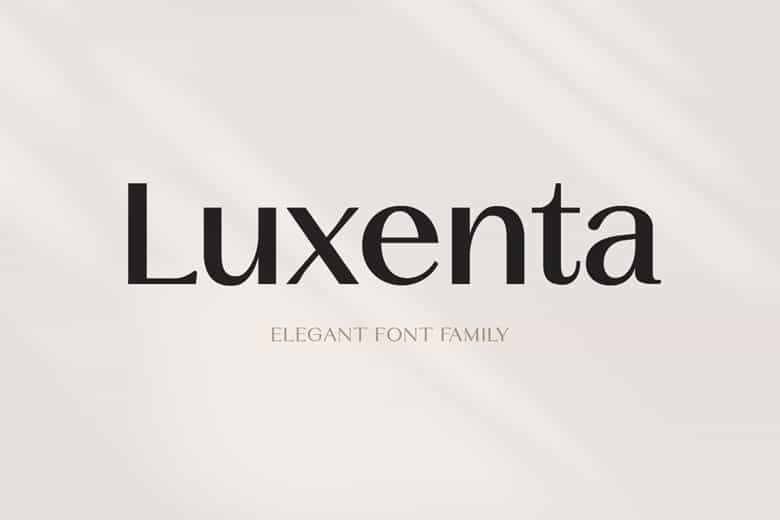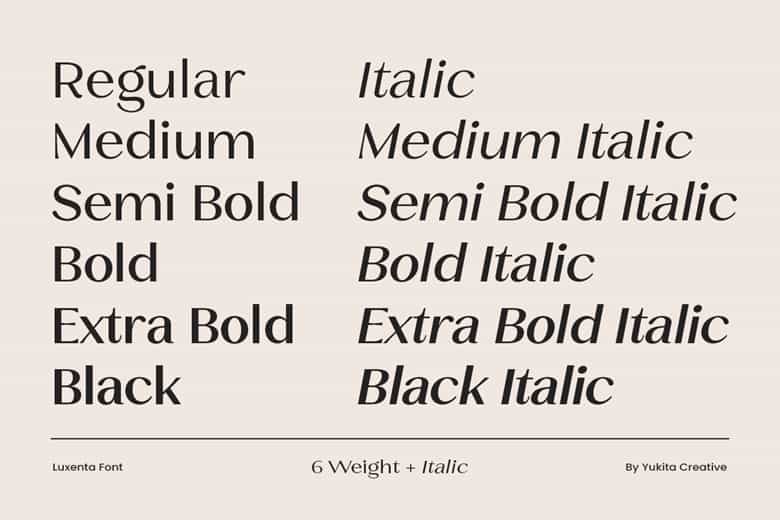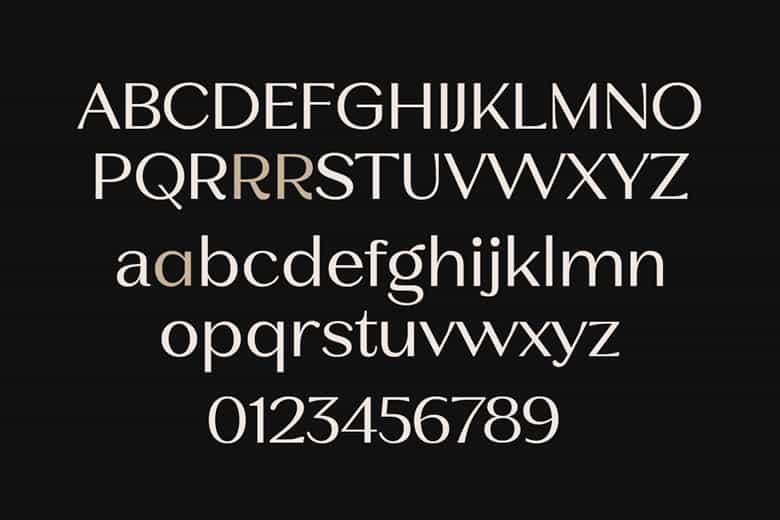
Luxenta is a new modern elegant sans serif typeface that was designed for designs which focus on beauty and style. This font is characterized by its minimalistic approach and a clean look and will be ideal for any designer who wants to give their creation a bit of a classy look. This can be useful in branding, magazines, logo designs and any design that requires a touch of sophistication and elegance.